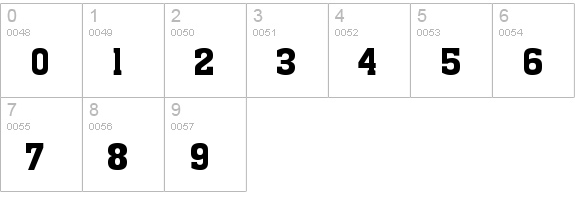
Aachen Medium Plain Font Details
Aachen Medium Plain is a balanced, medium-weight variant in the Aachen typeface family \xE2\x80\x94 well suited to sub-headlines, navigation, and balanced editorial work.
Aachen Medium Plain font is a classic typeface that exudes elegance and sophistication. Its timeless design makes it suitable for a wide range of applications, from print materials to digital designs. This font boasts clean lines and well-defined letterforms, making it highly legible and easy to read. The Aachen Medium Plain font is perfect for creating eye-catching headlines, logos, and branding materials. Its medium weight strikes the perfect balance between being bold and attention-grabbing, while still maintaining a sense of refinement and professionalism. One of the best features of the Aachen Medium Plain font is that it is freely available to download at FontsMarket.com. This means that you can use this font in your personal and commercial projects without any restrictions. Whether you are a professional designer or a hobbyist, this font empowers you to bring your creative visions to life without having to worry about licensing fees or limitations. With its versatility and accessibility, the Aachen Medium Plain font is a must-have for any designer's toolkit. Its timeless appeal and high level of legibility ensure that your designs will stand out and make a lasting impression. So why wait? Head over to FontsMarket.com and download the Aachen Medium Plain font today, and elevate your design projects to new heights of excellence.